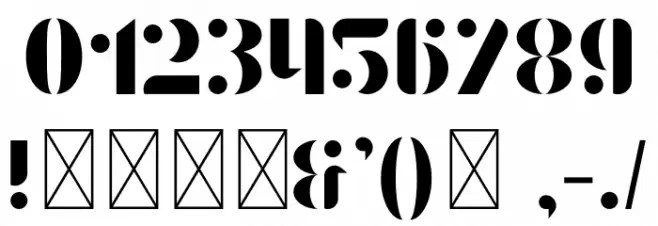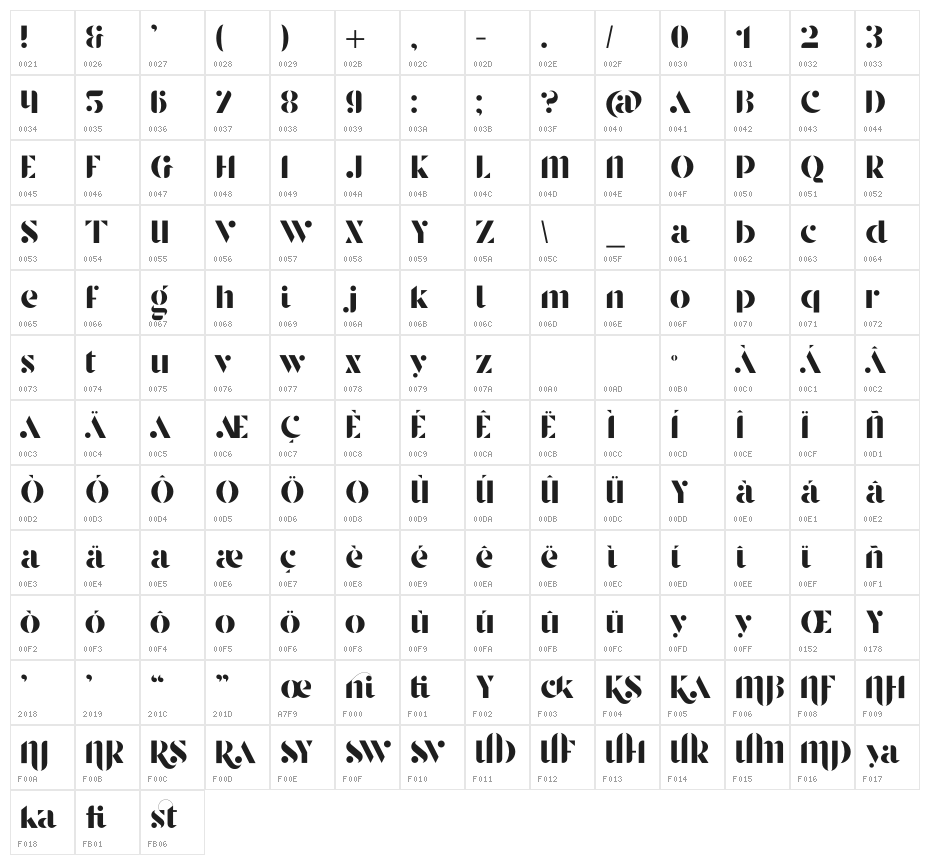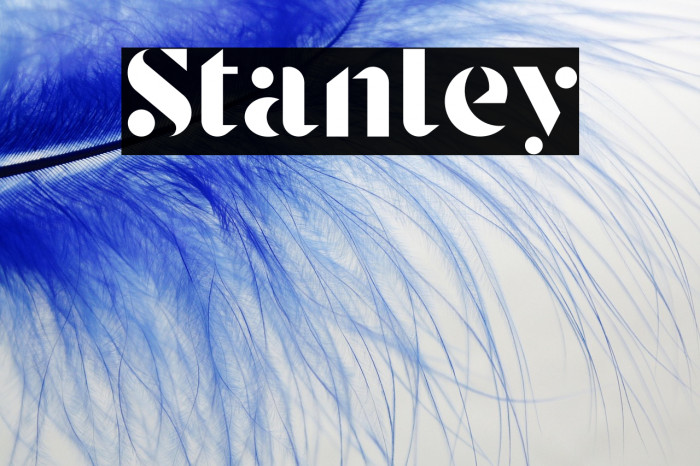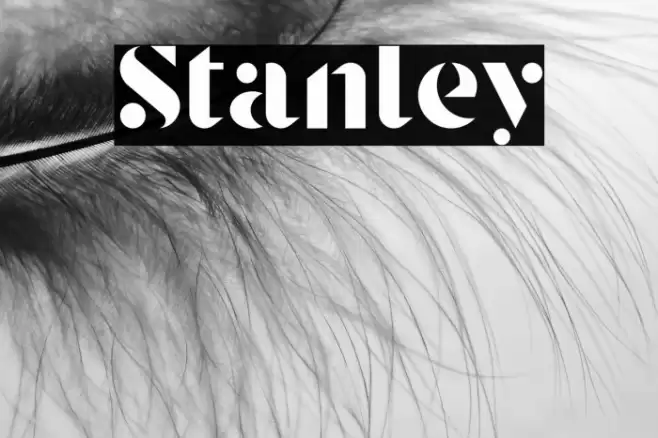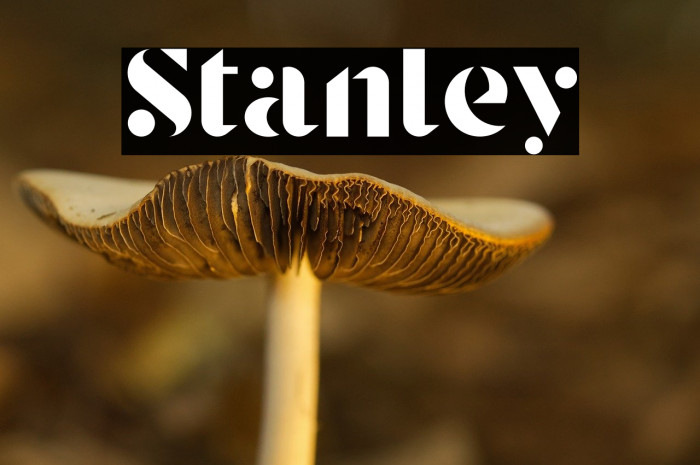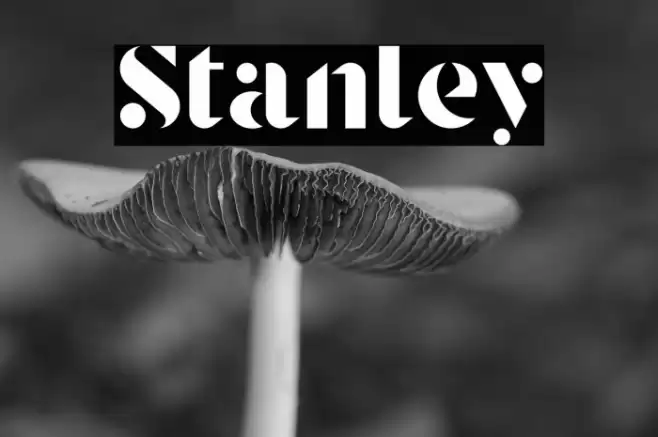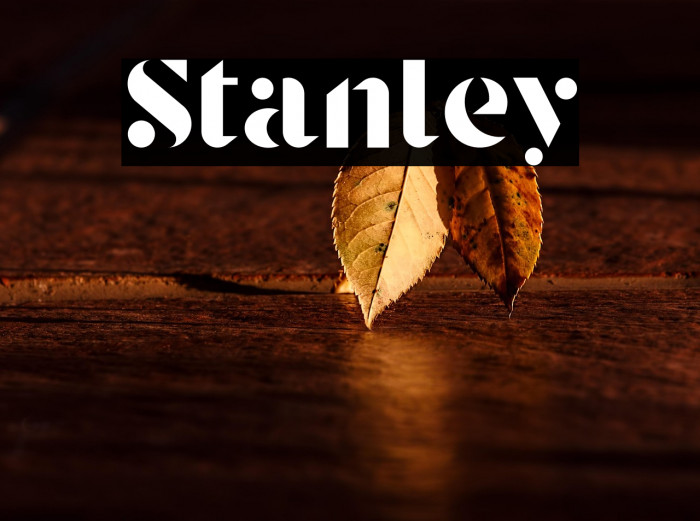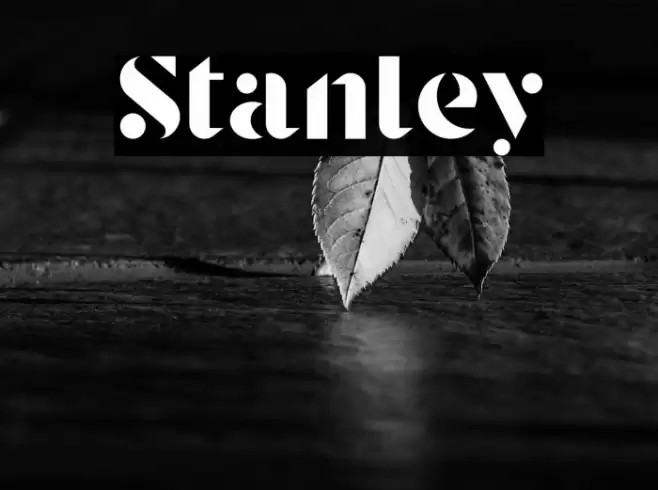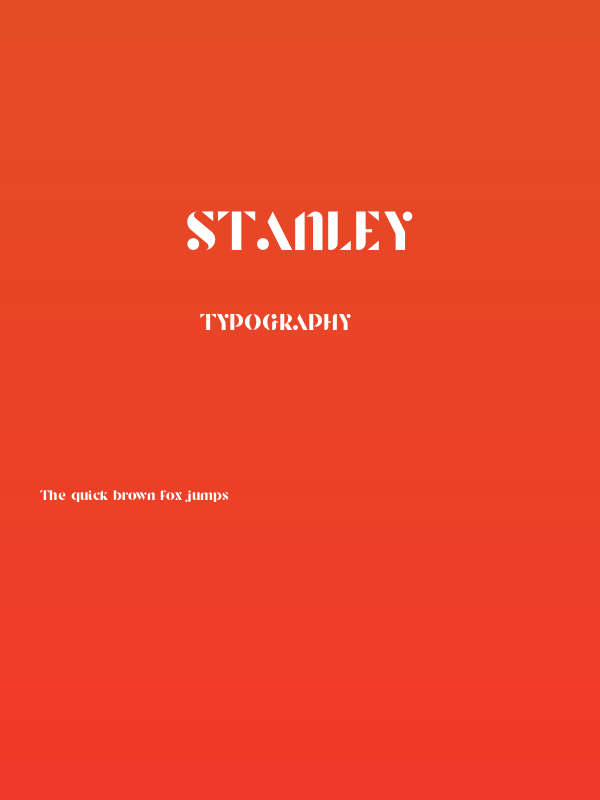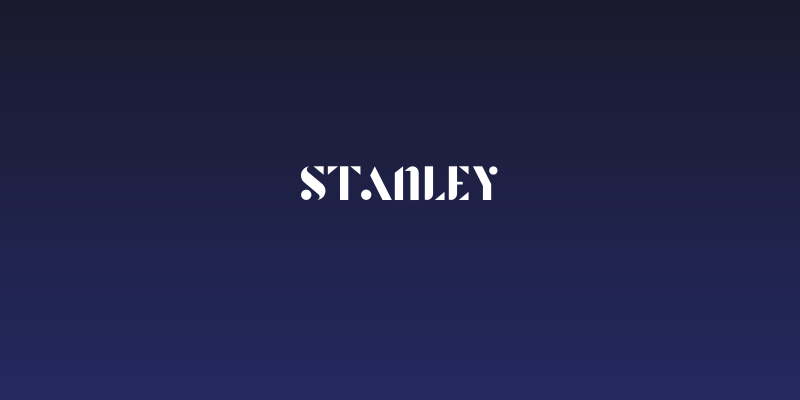
Stanley Font
Stanley Description
This font features a bold and striking design with geometric elements and high contrast between thick and thin strokes. The uppercase letters are particularly distinctive, with sharp angles and unique cutouts that create a modern and artistic appearance. The lowercase letters maintain a consistent style, offering a cohesive look across different text cases. Numbers and special characters follow the same design principles, ensuring uniformity. The overall aesthetic is both contemporary and eye-catching, making it suitable for projects that require a strong visual impact.
| Proposed Projects | Ideal for branding, posters, headlines, and any design work that requires a modern and impactful typeface. |